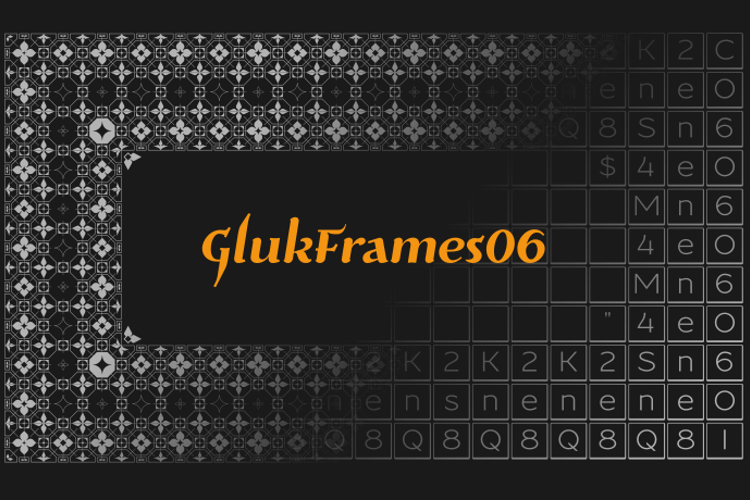
GlukFrames06 Font
About GlukFrames06 Font
Font GlukFrames06 is a set of Elements for creating Frames and Patterns in .otf Format. Full set of Elements, Examples of use and Tips You find in PDF.
Attention: Experimental Set, correct work depend of software settings like: Linespacing, Text Alignment etc.